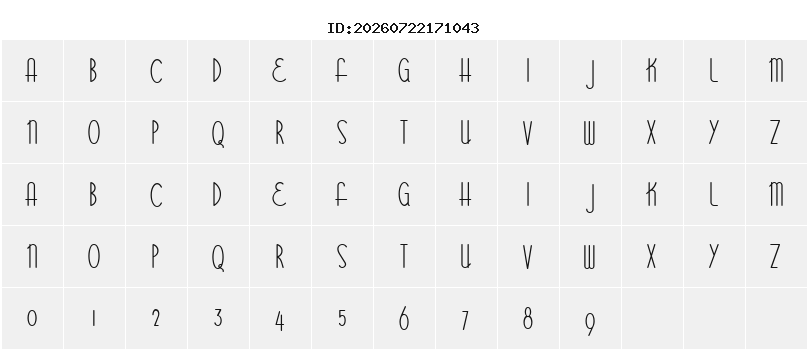
JI-Malice Preview
• Font Name: JI-Malice
• Full Font Name: JI-Malice
• PostScript Name: JI-Malice
• Designer: JupiterImages
About JI-Malice.ttf
JI-Malice.ttf is a modern, elegant sans-serif font designed for ultimate readability and visual harmony. Perfect for branding, headlines, web design, and print materials.